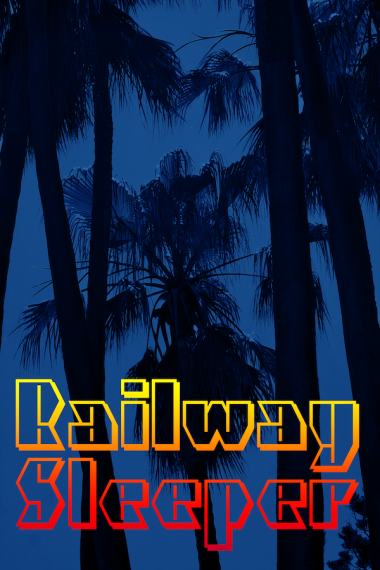
Railway Sleeper
Nice font. 10/10.
Great work!
Very nice indeed 10/10
I think the 'r' needs the same spacing as 'f'
Just awesome!
@p2pnut: Thanks, rs probably needs some serious kerning...
The Q tail is coool.